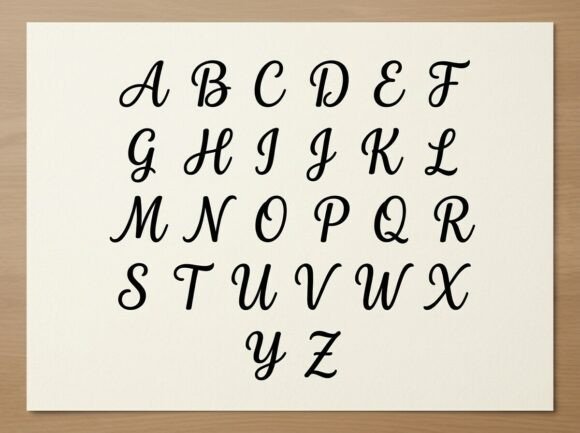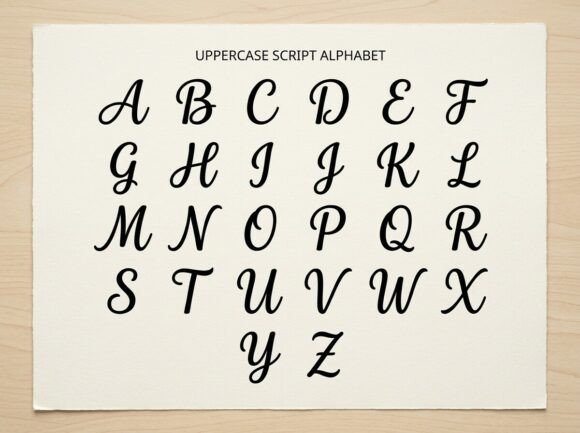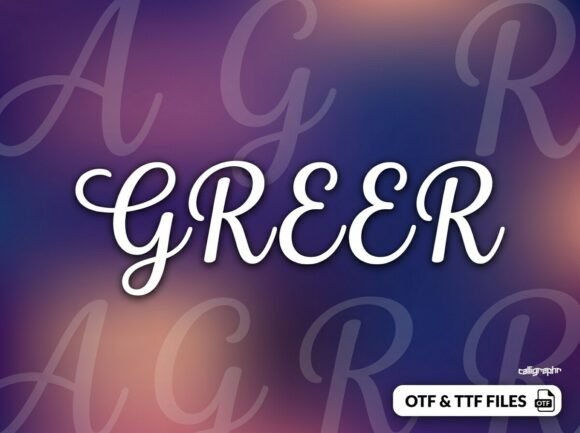
Introducing Greer Font: A Stunning Decorative Display Font
Are you tired of using the same old fonts for your creative projects? Look no further than Greer Font, a unique and artistic display font that’s sure to turn heads. Designed to be the center of attention, Greer Font features a strong visual personality and artistic elements that will help you break away from the ordinary.
What Makes Greer Font Special?
Greer Font is a versatile decorative display font that’s perfect for creators who want to add a touch of elegance and sophistication to their work. With its unique artistic elements and strong visual personality, this font is ideal for bold headlines, artistic logos, and creative packaging. Whether you’re a designer, crafty DIY enthusiast, or entrepreneur, Greer Font is the perfect choice for anyone looking to make a statement.
Use Cases for Greer Font
Greer Font is perfect for a variety of creative projects, including:
• Bold Headlines: Use Greer Font to create eye-catching headlines that grab attention and make a statement.
• Artistic Logos: Create a unique and memorable logo for your business or brand with Greer Font.
• Creative Packaging: Add a touch of elegance and sophistication to your product packaging with Greer Font.
• Social Media Graphics: Use Greer Font to create stunning social media graphics that stand out from the crowd.
Why Choose Greer Font?
There are many reasons why Greer Font stands out from the crowd. Here are just a few:
• Unique and Artistic: Greer Font features unique artistic elements and a strong visual personality that will help you break away from the ordinary.
• Versatile: Greer Font is versatile enough for use on a variety of creative projects, from bold headlines to artistic logos and creative packaging.
• Professional and Polished: Despite its decorative nature, Greer Font maintains a professional and polished finish that’s perfect for businesses and brands.
Tips for Using Greer Font
Here are a few tips for getting the most out of Greer Font:
• Use it Sparingly: Because Greer Font is a decorative display font, it’s best to use it sparingly to avoid overwhelming your design.
• Pair it with a Simple Font: Pair Greer Font with a simple font to create visual interest and add contrast to your design.
• Experiment with Colors and Textures: Don’t be afraid to experiment with different colors and textures to add depth and interest to your design.
Greer Font is a stunning decorative display font that’s perfect for creators who want to add a touch of elegance and sophistication to their work. With its unique artistic elements and strong visual personality, this font is ideal for bold headlines, artistic logos, and creative packaging. Whether you’re a designer, crafty DIY enthusiast, or entrepreneur, Greer Font is the perfect choice for anyone looking to make a statement.